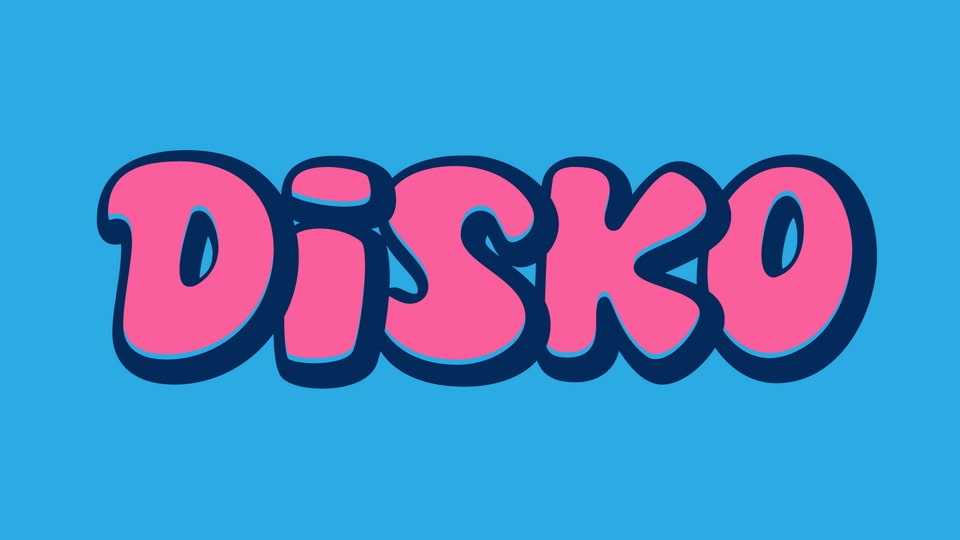
Download Disco font, a bold and old school graffiti style typeface, that’s phat! What makes this font unique is that the letters overlap.
Designer: Jess Latham